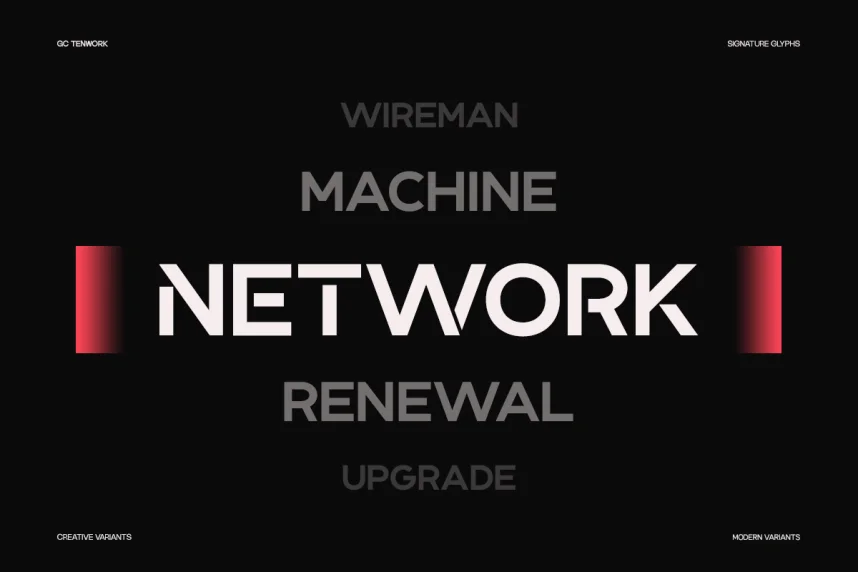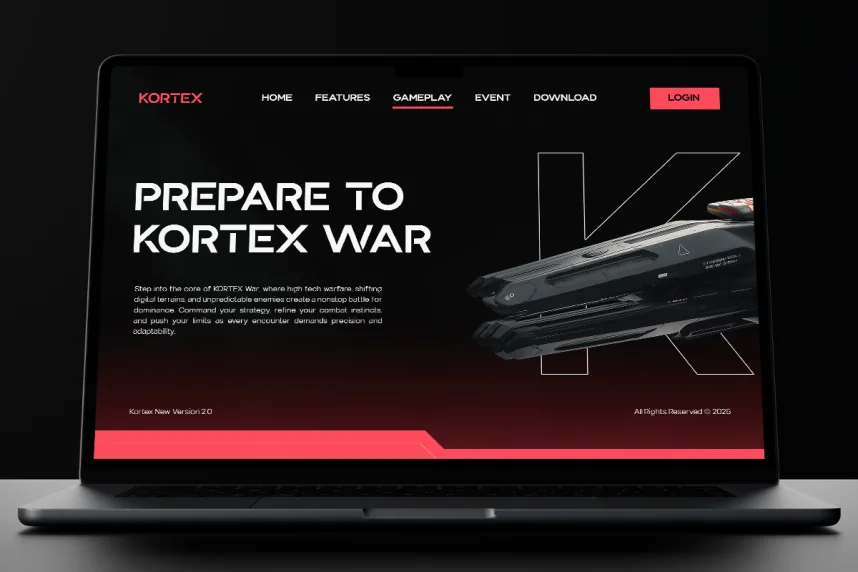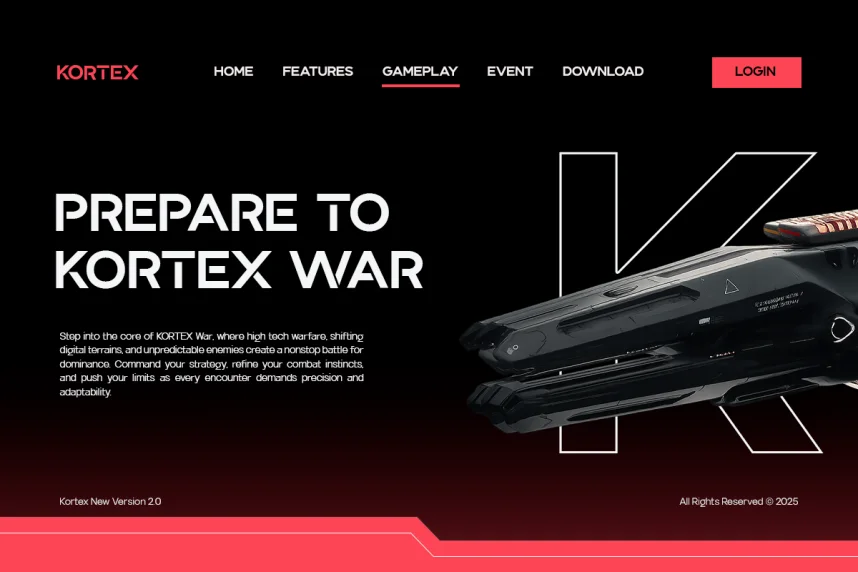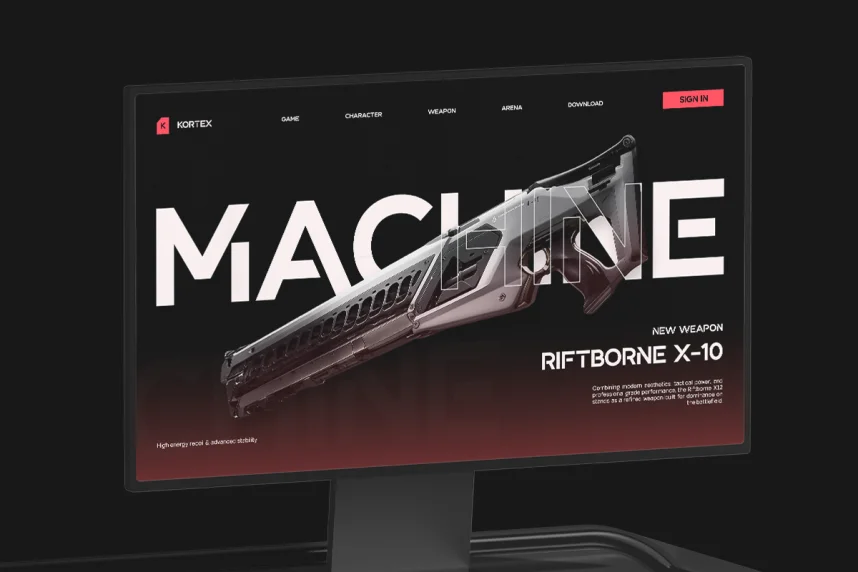
GC Tenwork Font is a clean sans-serif typeface created for functional design systems and consistent branding. Designers often face issues with fonts that lose clarity in UI and responsive layouts. GC Tenwork addresses this through simple shapes and open spacing.
This font belongs to the sans-serif category. Its letterforms feature uniform stroke width, open counters, and minimal contrast. These traits improve readability on screens and in print. The font maintains balance across different weights and sizes, supporting structured layouts.
GC Tenwork is suitable for UI design, web design, corporate branding, dashboards, and mobile applications. It works well for both headings and body text. Designers typically pair it with a serif or display font to add visual contrast.